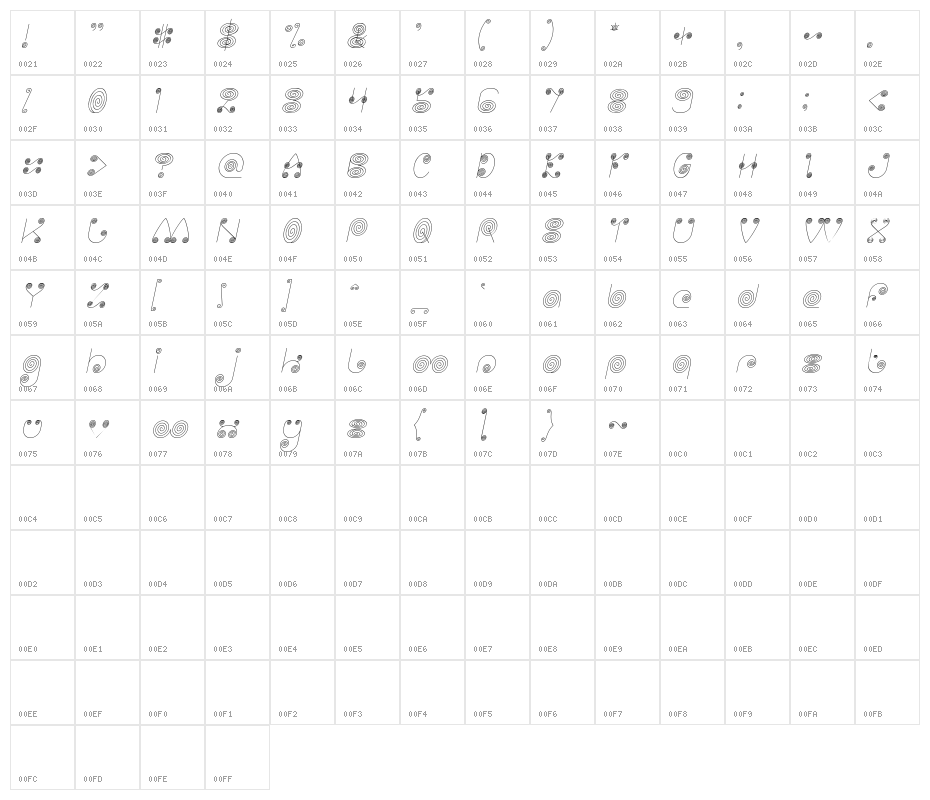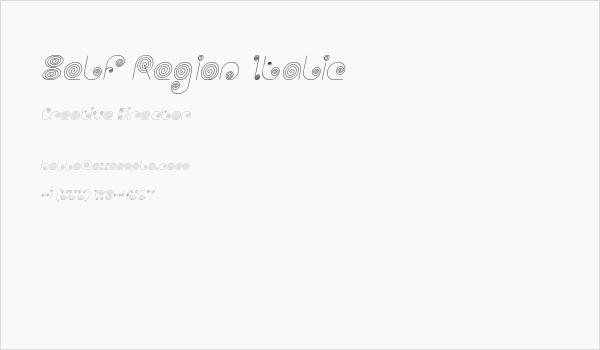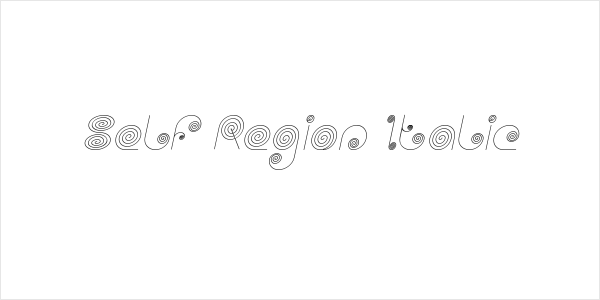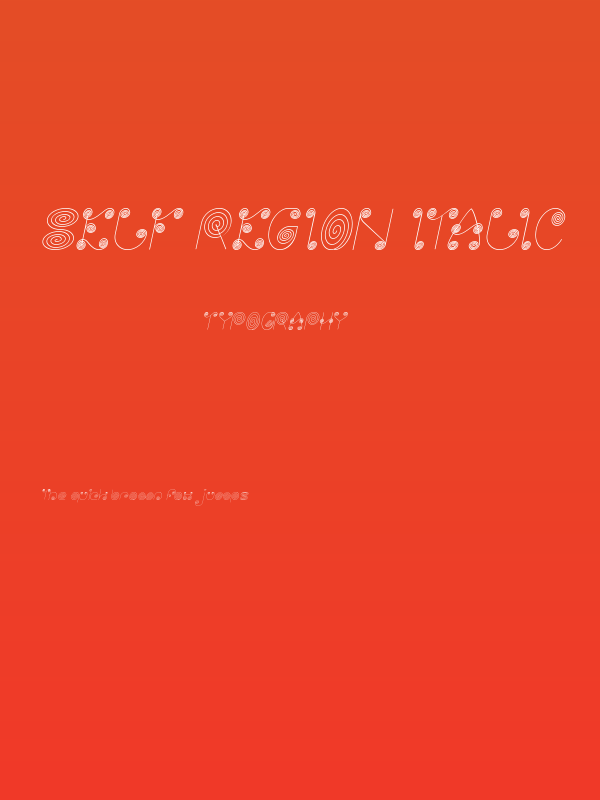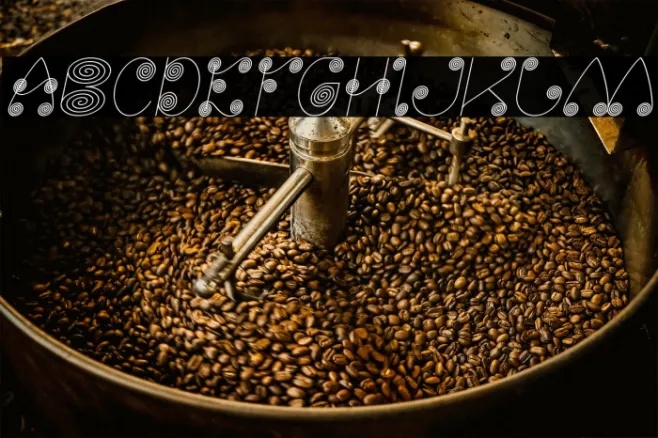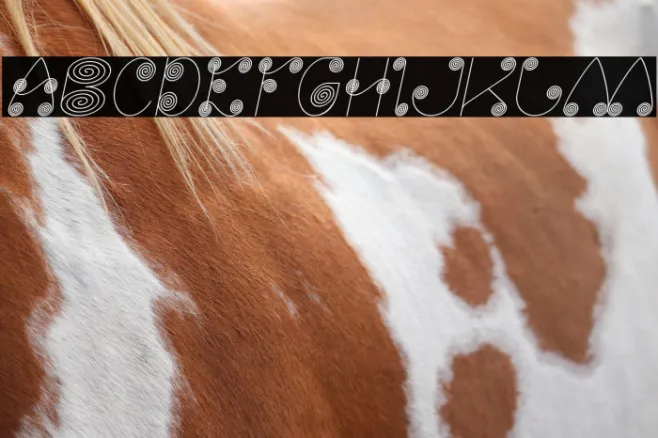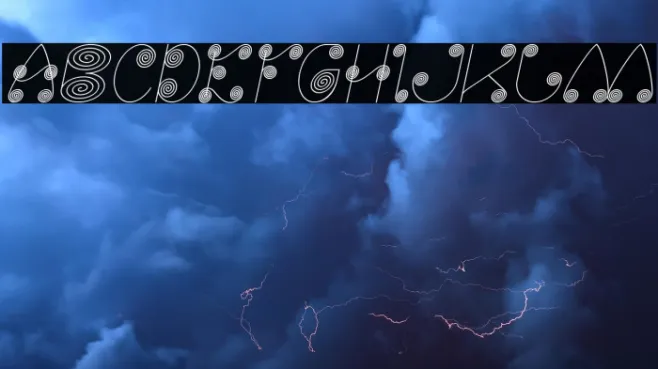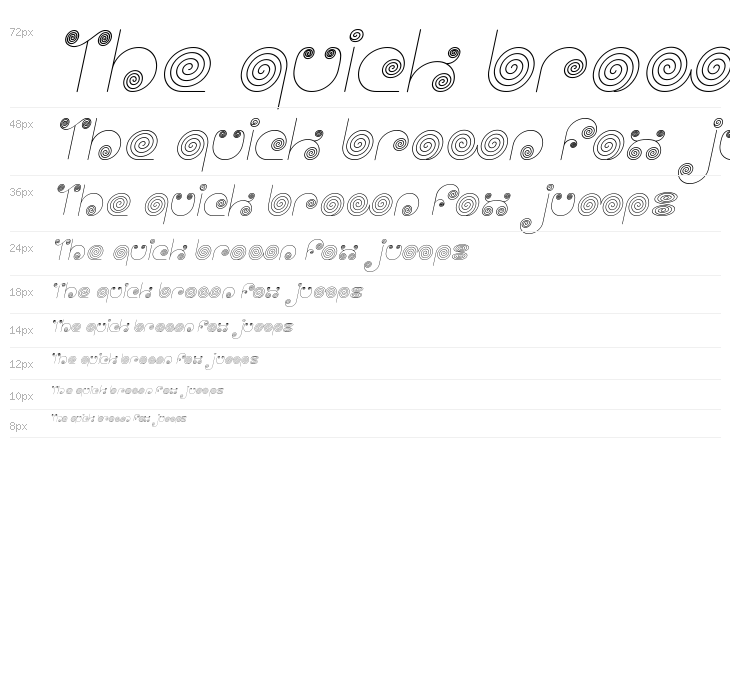
Self Region Italic Font
Self Region Italic Description
This font features a unique and whimsical design characterized by intricate spiral patterns integrated into each character. The letters are crafted with a playful and artistic flair, making them stand out with their decorative swirls. The font maintains a consistent spiral motif across both uppercase and lowercase letters, as well as numbers and special characters. This intricate design lends a sense of creativity and fun, perfect for projects that require a touch of uniqueness and artistic expression.
| Proposed Projects | Ideal for creative projects such as invitations, greeting cards, artistic posters, and branding materials that seek a playful and unique aesthetic. |